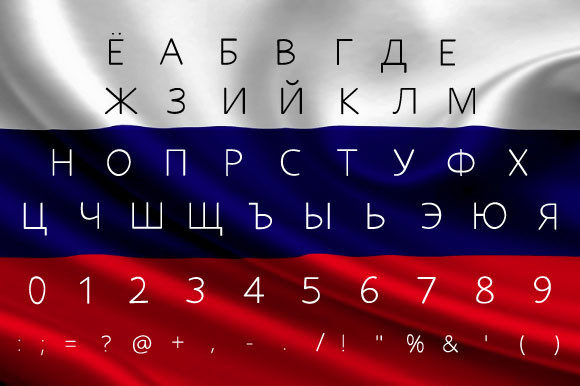
Introduction to Russian Cyrillic Lettering Font
Russian Cyrillic Lettering is a useful and interesting looking display font.
It will look stunning on any poster, flyer or print Use this font for your designs and explore its endless possibilities.
Key Features of Russian Cyrillic Lettering Font
Why Choose Russian Cyrillic Lettering Font?